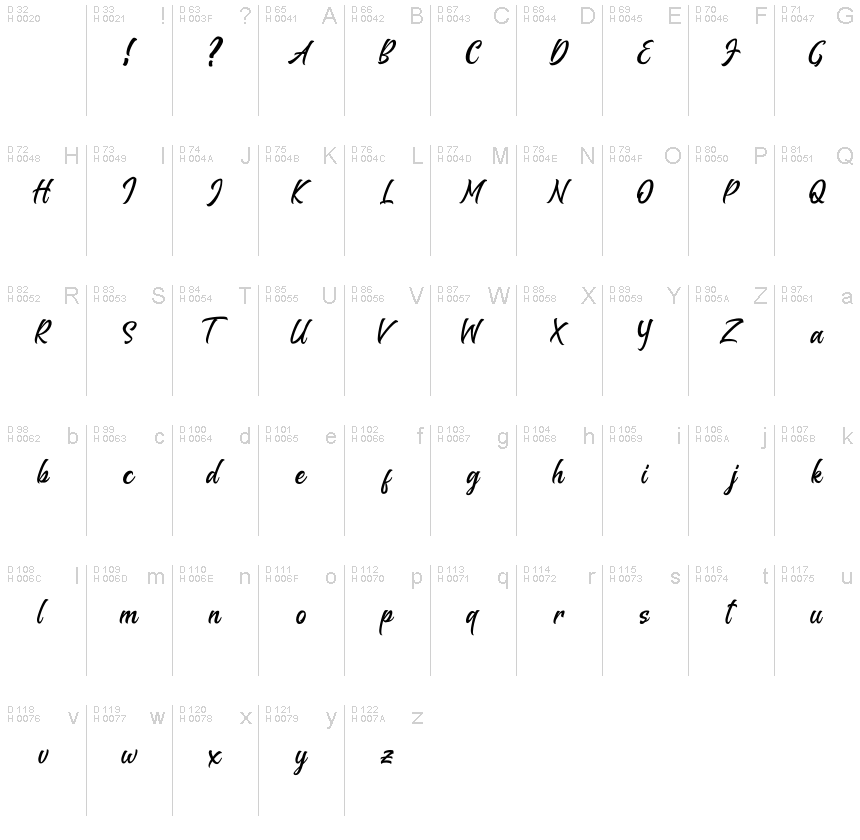
Melantune
Melantune is a captivating handwritten font that exudes an air of effortless sophistication. Designed by Seto Febriant, this font showcases a harmonious blend of smooth, flowing strokes and subtle imperfections, lending it a distinct character that feels both polished and organic. The elegant, script-like letterforms effortlessly convey a sense of warmth and personality, making Melantune an ideal choice for a wide range of applications, from editorial design and branding to personal stationery and wedding invitations.
The font's versatility lies in its ability to strike a balance between formal and casual, allowing it to adapt seamlessly to both modern and traditional design aesthetics. Its distinctive style lends an air of authenticity and personal touch to any project, making it a versatile tool for designers and creatives seeking to infuse their work with a touch of handcrafted charm.